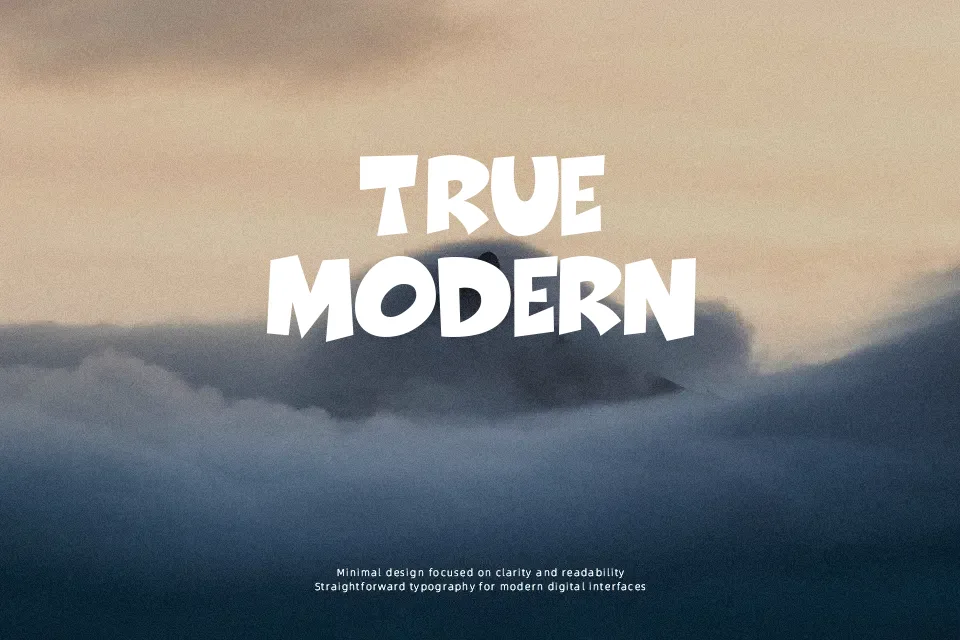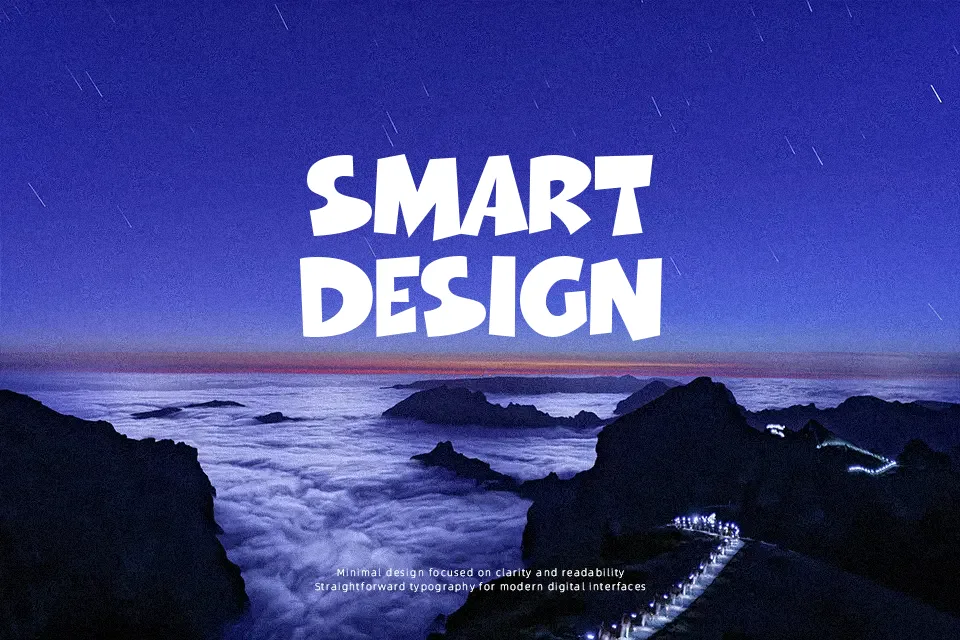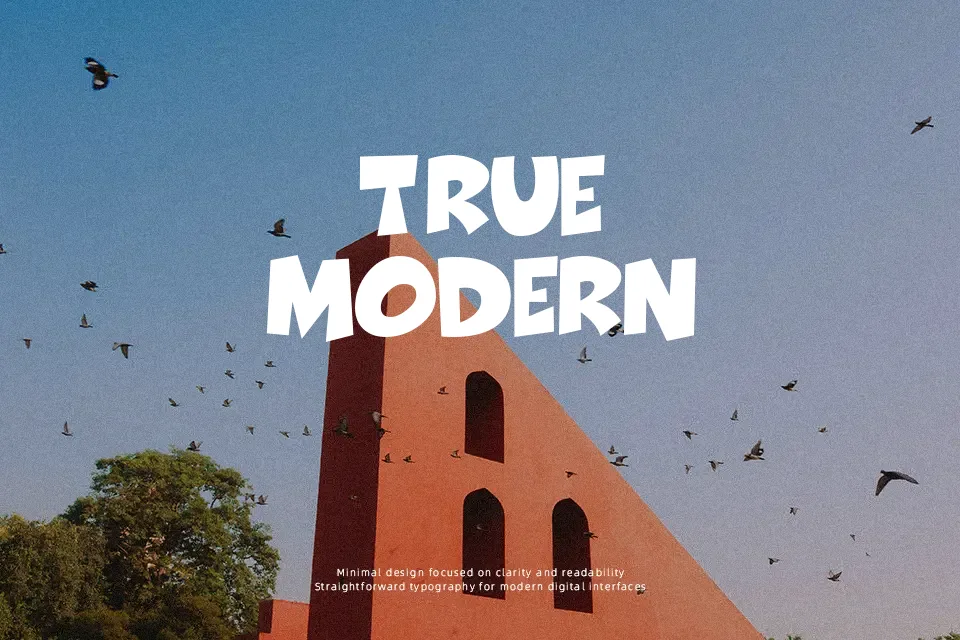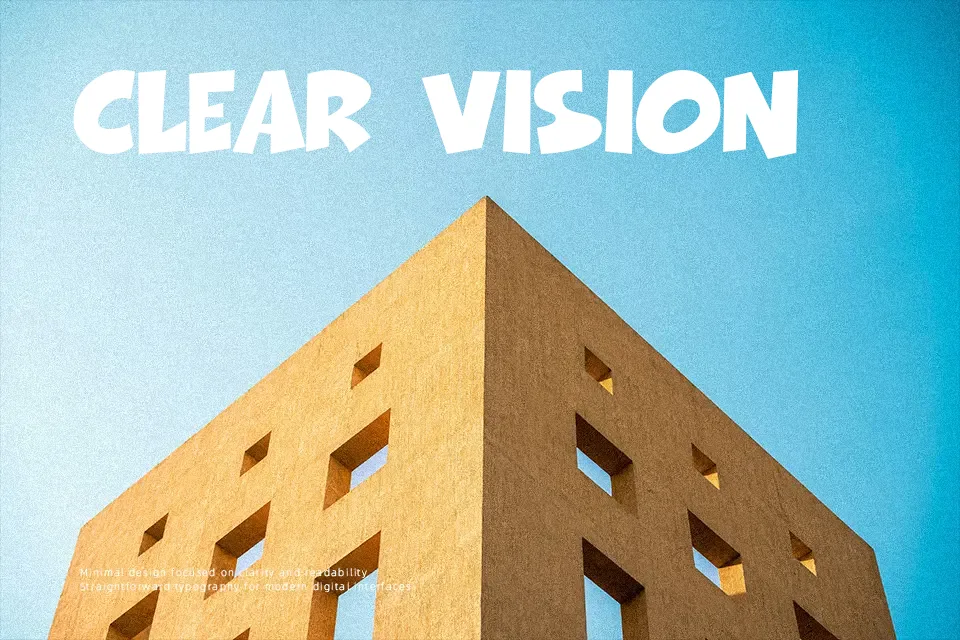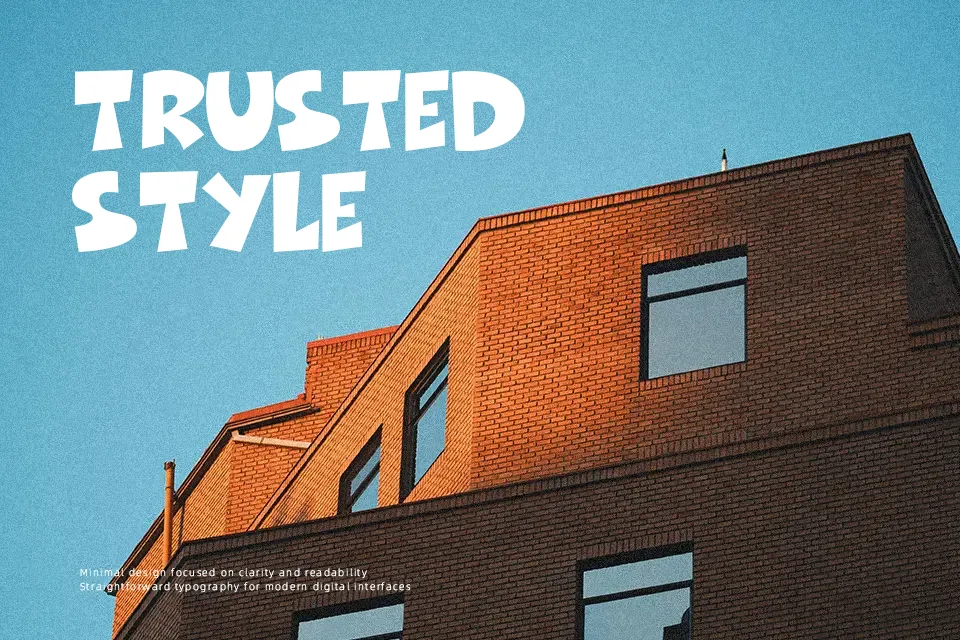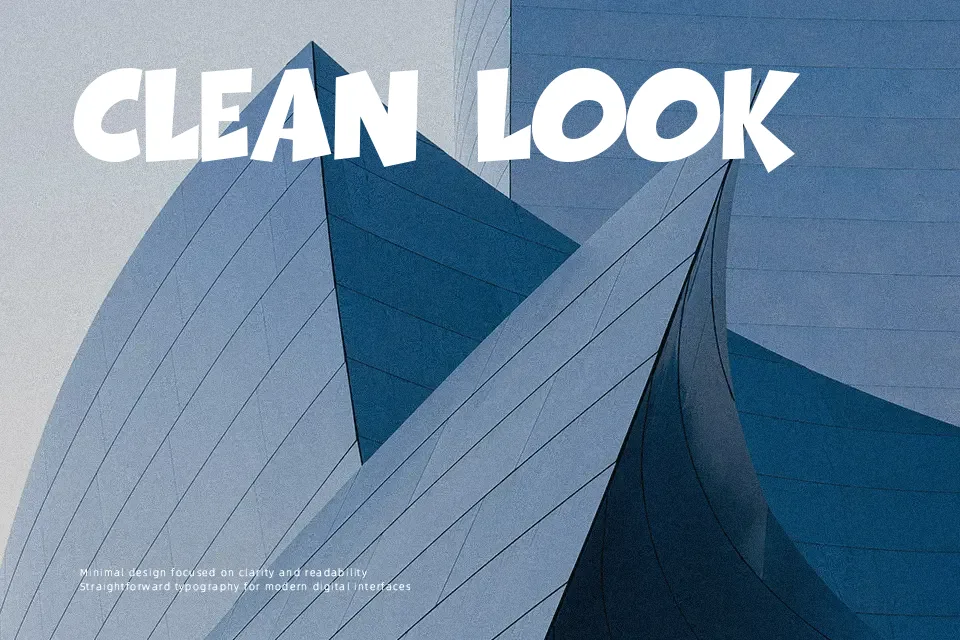
Thwack Font
Designed by Digital Dog Graphics
Thwack Font introduces a distinctly animated structure characterized by bold, irregular strokes and high-impact proportions reminiscent of classic comic book lettering. The letterforms exhibit tight spacing and robust contours that maximize visibility when viewed across broad visual planes. At substantial display scales, the typeface maintains crisp legibility, lending lively energy to cartoon title cards, arcade packaging, and apparel graphics. However, the heavy weight and compact letter-spacing significantly reduce comfort in multi-line paragraphs, causing dense text blocks to feel cluttered. While small captions lose optical clarity, the design functions reliably as a focal header where vibrant, punchy lettering is required.
Best For: comic book covers,cartoon title cards,video game packaging,event posters
Not Ideal For: continuous body text,dense book layouts,corporate documents,small captions